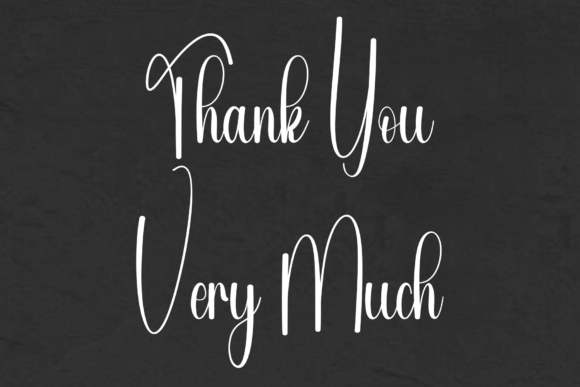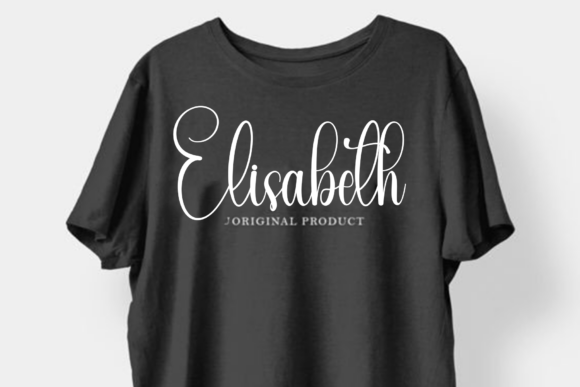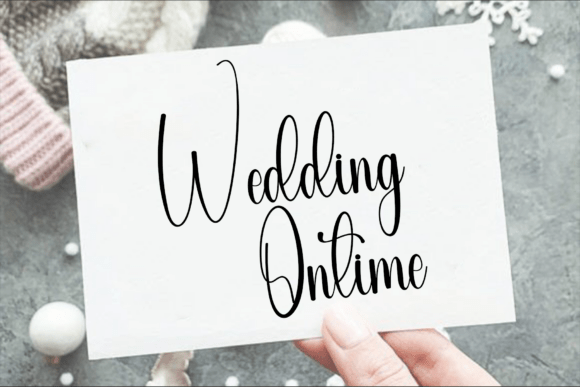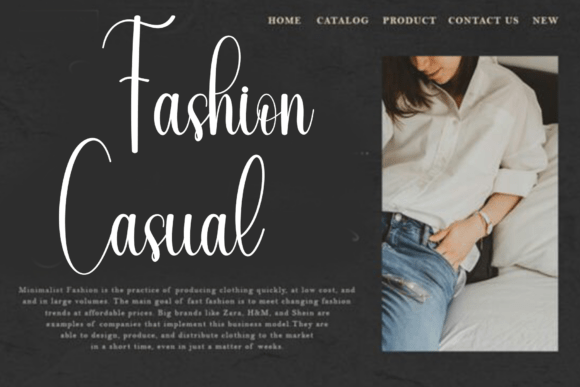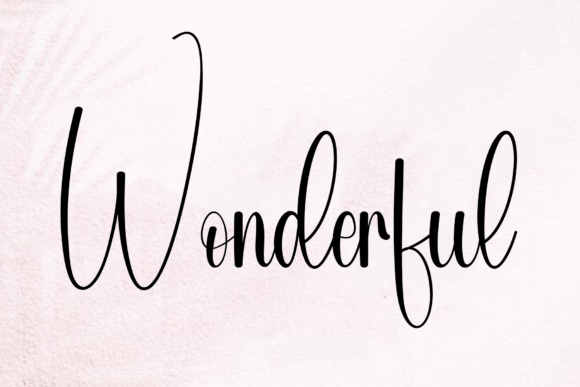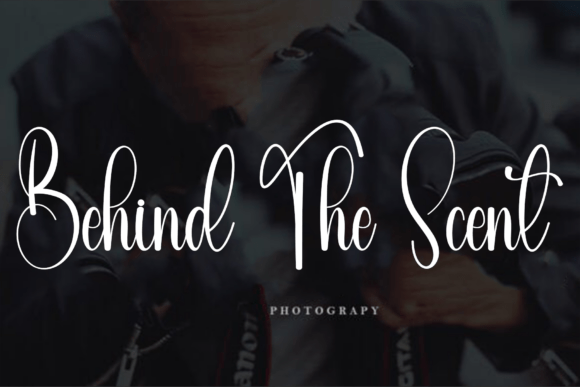
As I sat in my garden, surrounded by lush greenery and the soothing sounds of nature, I felt inspired to create something truly special – a label for my homemade botanical skincare that captured the essence of my craft. The perfect font, I thought, would be the key to making it stand out. That’s when I stumbled upon Gardenium Handwriting Font, a beautiful script that exudes a sense of elegance and sophistication.
Gardenium Handwriting Font is a masterful blend of casual penmanship and formal calligraphy, perfect for adding a human touch to high-end event stationery and artisanal packaging. Its rhythmic stroke variations and vertical tilt create a finished look that’s simply irresistible. For designers, this font is a valuable asset, offering a unique way to convey a sense of warmth and craftsmanship in their designs.
- Unique Characteristics: Whimsical and elegant handwriting font with a natural, handwritten feel; perfect for creative projects, invitations, and personal documents
Gardenium Handwriting Font Review
Gardenium Handwriting Font is a charming addition to any digital design project. ✨ The font’s playful and whimsical feel makes it perfect for creating eye-catching headings, titles, and other text elements that require a touch of personality.
The font’s versatility is another major plus point. ✨ You can use it for a wide range of projects, from children’s book illustrations to wedding invitations, and it’s sure to add a unique touch to each one. The font’s subtle imperfections and nuances give it a hand-drawn feel that’s sure to captivate your audience.
- ⚠️ Limited character set: Gardenium Handwriting Font may not have a complete set of characters, which could make it difficult to use for long-form text or in situations where you need to use special characters.
- ⚠️ Not ideal for small text: The font’s irregularities and imperfections can make it difficult to read in small sizes, so it’s best to use it for larger text elements.
Overall, I’d say Gardenium Handwriting Font is a great addition to any designer’s toolkit. While it may have some limitations, its unique charm and versatility make it a valuable asset for any project that requires a touch of personality.
Use Gardenium Handwriting Font to create whimsical and playful designs.
Pair it with other fonts for a unique and eye-catching look.
Experiment with different font sizes and colors to add emphasis and visual interest.
Gardenium Handwriting Font is perfect for:
Children’s books and educational materials.
Personalized gifts and party invitations.
Alternatives to Gardenium Handwriting Font
Lobster Font is a popular, modern handwritten font suitable for use in logos, titles, and headings. It has a casual, cursive feel that works well for creative and artistic designs. When to use: Websites, social media, and branding materials that require a touch of elegance and sophistication.
Comparison: Unlike Gardenium Handwriting Font, Lobster Font has a more fluid and connected feel, making it ideal for longer text passages. However, it may not be as versatile for formal or traditional designs.
Great Vibes Font is a beautiful, handwritten script font with a romantic and whimsical feel. It’s perfect for use in wedding invitations, greeting cards, and other creative projects. When to use: Projects that require a touch of romance, elegance, and sophistication.
Comparison: Great Vibes Font has a more elegant and refined feel compared to Gardenium Handwriting Font. However, it may not be as versatile for use in modern or edgy designs.
Pacifico Font is a modern, elegant script font with a relaxed and casual feel. It’s perfect for use in logos, titles, and headings, and works well for creative and artistic designs. When to use: Websites, social media, and branding materials that require a touch of elegance and sophistication.